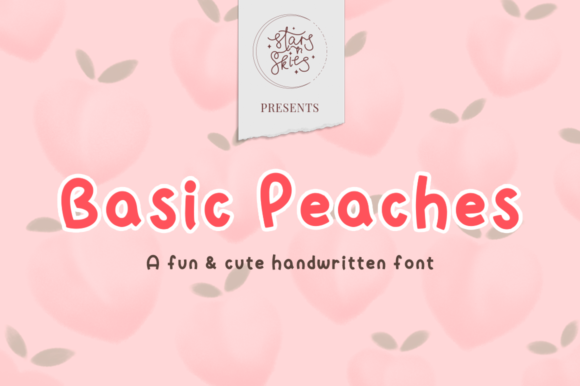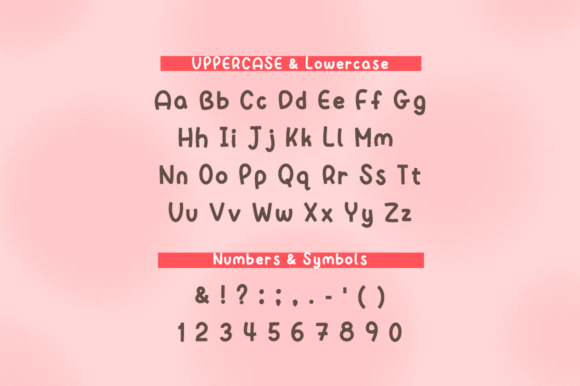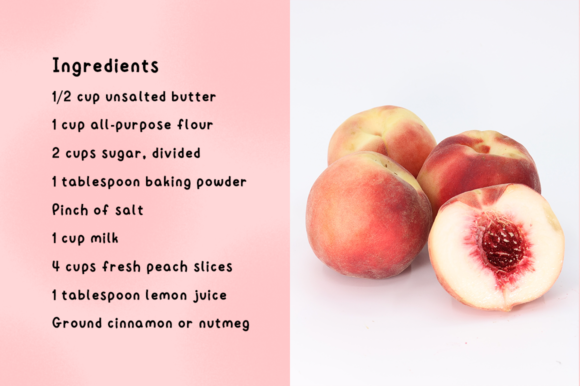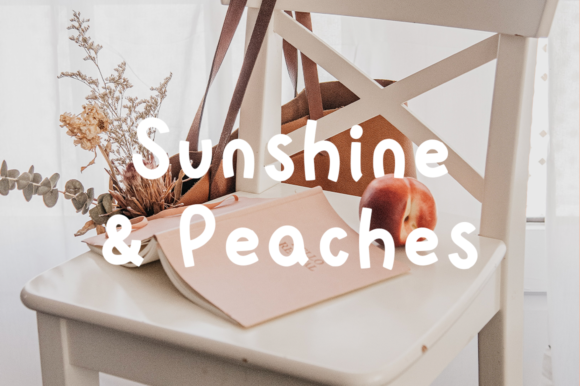
Unlock the Sweet Charm of Your Designs
Have you ever stared at a blank canvas, waiting for inspiration to strike? For many creatives, those moments of blankness can be the most frustrating – but also the most exciting. It’s in these moments that we discover new ideas, experiment with fresh styles, and push the boundaries of our imagination. And that’s exactly where the Basic Peaches Font comes in – a delightful handwritten font that adds a touch of warmth and personality to any design.
This sweet and friendly font is perfect for designers looking to add a natural, unique twist to their projects. With its effortless charm, Basic Peaches Font is incredibly versatile and can be used in a wide range of designs, from invitations and greeting cards to branding and advertising. Whether you’re a seasoned pro or just starting out, this font is sure to become a trusted companion in your creative journey.
- Unique Characteristics: Features a unique, hand-drawn design with subtle texture and organic feel
Basic Peaches Font Review
Overall, I found the Basic Peaches font to be a decent addition to any design project. Here’s what works well:
- ✨ The font’s playful and casual vibe is perfect for informal projects like blog posts, social media graphics, or advertisements.
- ✨ The font is highly legible, even at smaller font sizes, making it a great choice for body text.
- ✨ The font’s versatility allows it to work well in both digital and print media.
- ⚠️ The font’s simplicity can make it feel a bit bland or uninteresting for more complex or formal projects.
- ⚠️ The font lacks a bold weight, which can make it difficult to use in situations where you need to draw attention to text.
- ⚠️ The font’s OpenType features are limited, which can restrict its use in more advanced typography applications.
Overall, I would recommend the Basic Peaches font for casual, informal projects where a playful and approachable vibe is desired. However, for more complex or formal projects, you may want to consider a more robust font option.
The Basic Peaches font is perfect for creating a playful and elegant look in a variety of projects, including:
Remember to adjust the font size and color to ensure the text is readable and visually appealing.
Alternatives to Basic Peaches Font
Pacifico is a modern script font designed by Paul Barnes. It’s perfect for use in branding, invitations, and other creative projects where a touch of elegance is required. Pacifico has a similar relaxed and casual feel to Basic Peaches, but with a more refined and sophisticated appearance.
Comparison: Pacifico is more polished and elegant compared to Basic Peaches, making it suitable for formal events and high-end branding.
Great Vibes is a beautiful, modern script font designed by Javier Lopez. It’s ideal for use in creative projects, such as posters, flyers, and social media graphics. Great Vibes has a similar playful and carefree feel to Basic Peaches, but with a more vibrant and energetic appearance.
Comparison: Great Vibes is more energetic and playful compared to Basic Peaches, making it suitable for creative projects and social media graphics.
Carolyna Pro is a modern script font designed by Carolyna Rodriguez. It’s perfect for use in branding, invitations, and other creative projects where a touch of sophistication is required. Carolyna Pro has a similar elegant and refined feel to Basic Peaches, but with a more modern and sleek appearance.
Comparison: Carolyna Pro is more modern and sleek compared to Basic Peaches, making it suitable for high-end branding and formal events.
Alex Brush is a beautiful, modern script font designed by Lauren Thompson. It’s ideal for use in creative projects, such as posters, flyers, and social media graphics. Alex Brush has a similar elegant and refined feel to Basic Peaches, but with a more whims